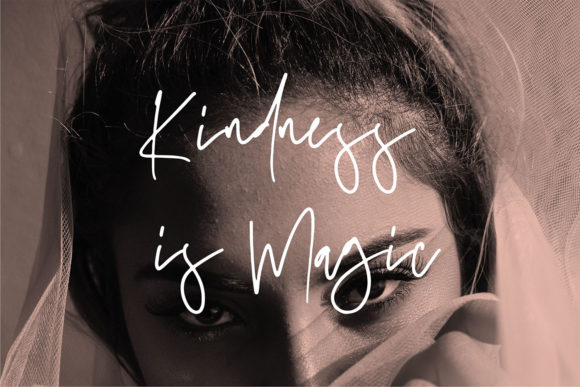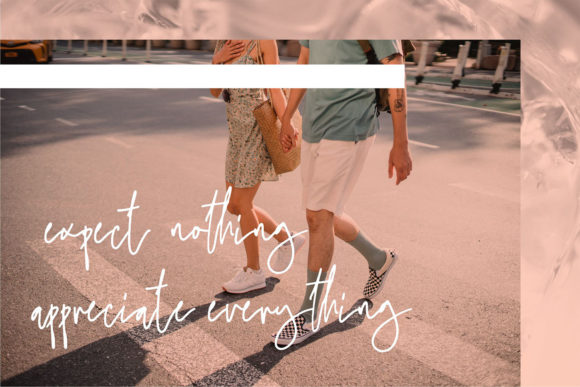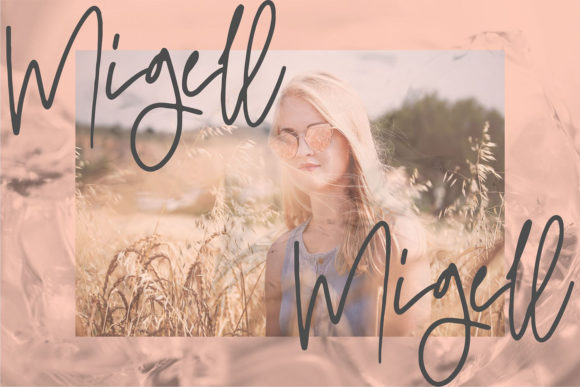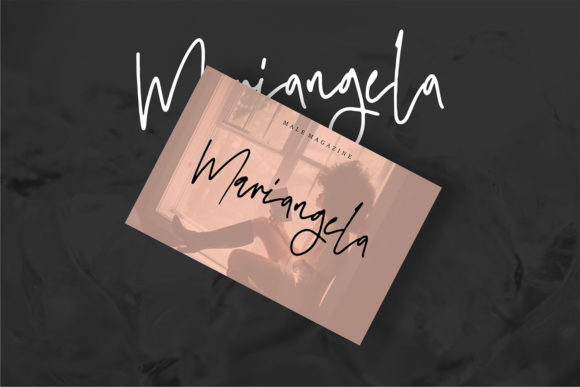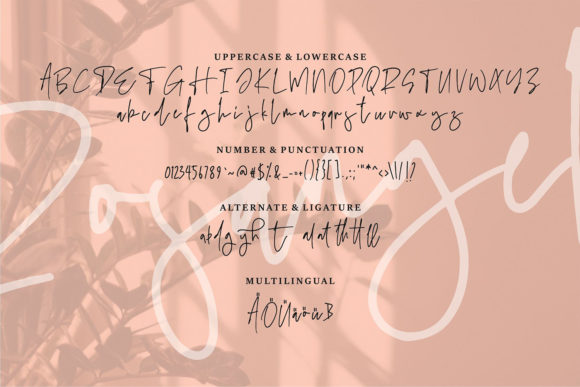
Introduction to Rosangel Font
Rosangel is a relaxed and warm hearted paint brushed script font.
It looks beautiful on a variety of designs requiring a personalized style, such as wedding invitations, thank you cards, weddings, greeting cards, logos and so on .
Key Features of Rosangel Font